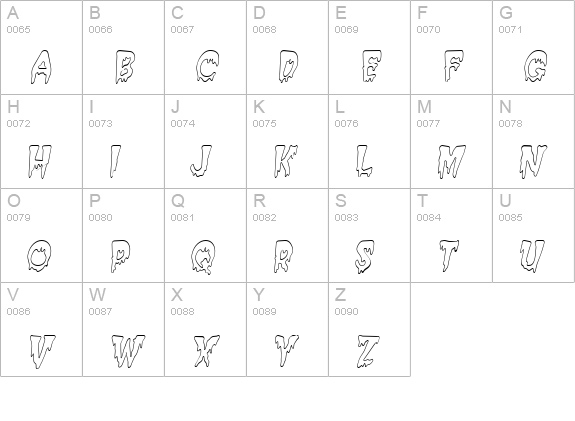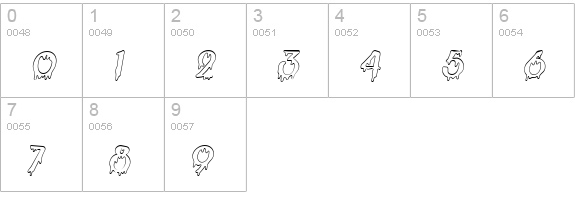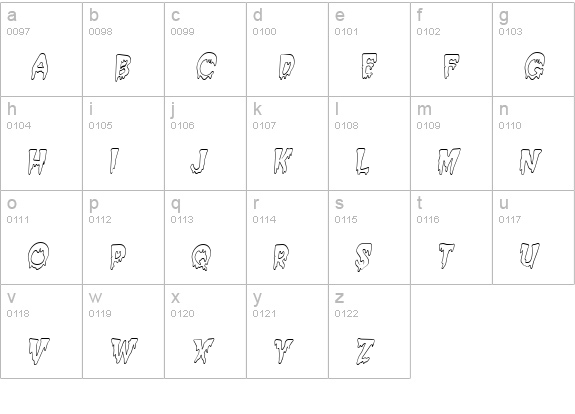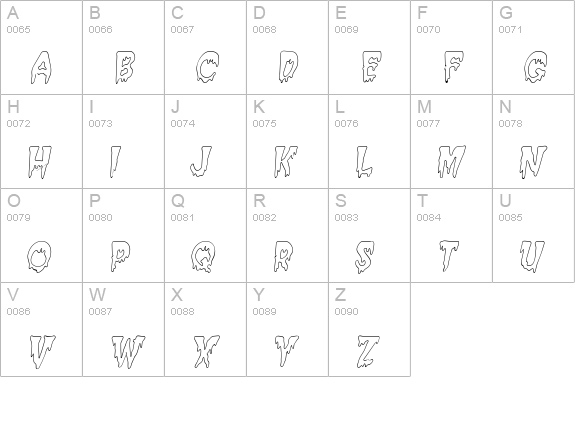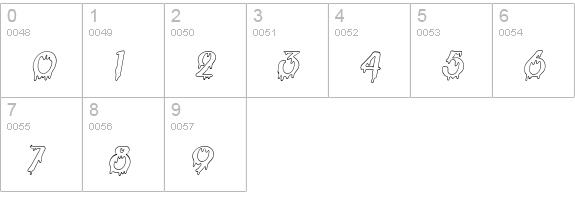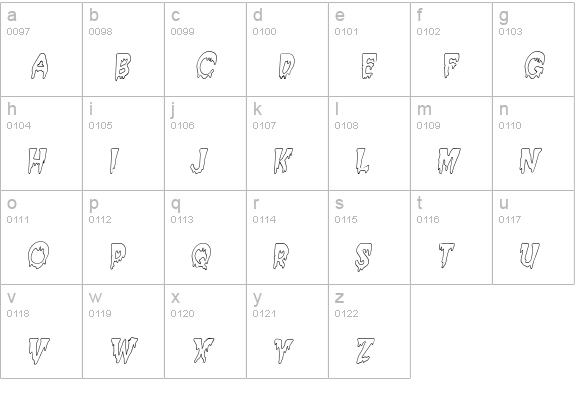
Creepy HollowCondensed Italic Font Details
Creepy HollowCondensed Italic is a distinctive, italic variant in the Creepy typeface family \xE2\x80\x94 well suited to design and typography projects.
Creepy HollowCondensed Italic font is a chilling and unsettling typeface that exudes an eerie and mysterious atmosphere. Its twisted and elongated letterforms create a sense of unease, perfect for adding a touch of darkness to your designs. The slanted italic style adds a sense of movement and dynamism, making it ideal for conveying a sense of foreboding or suspense. This font is freely available to download at FontsMarket.com, allowing you to easily incorporate its haunting charm into your projects. Whether you're working on a spooky Halloween invitation, a ghostly poster, or a mysterious book cover, Creepy HollowCondensed Italic font will add a sinister edge to your designs. Embrace the darkness and download this font today to give your work a creepy twist.